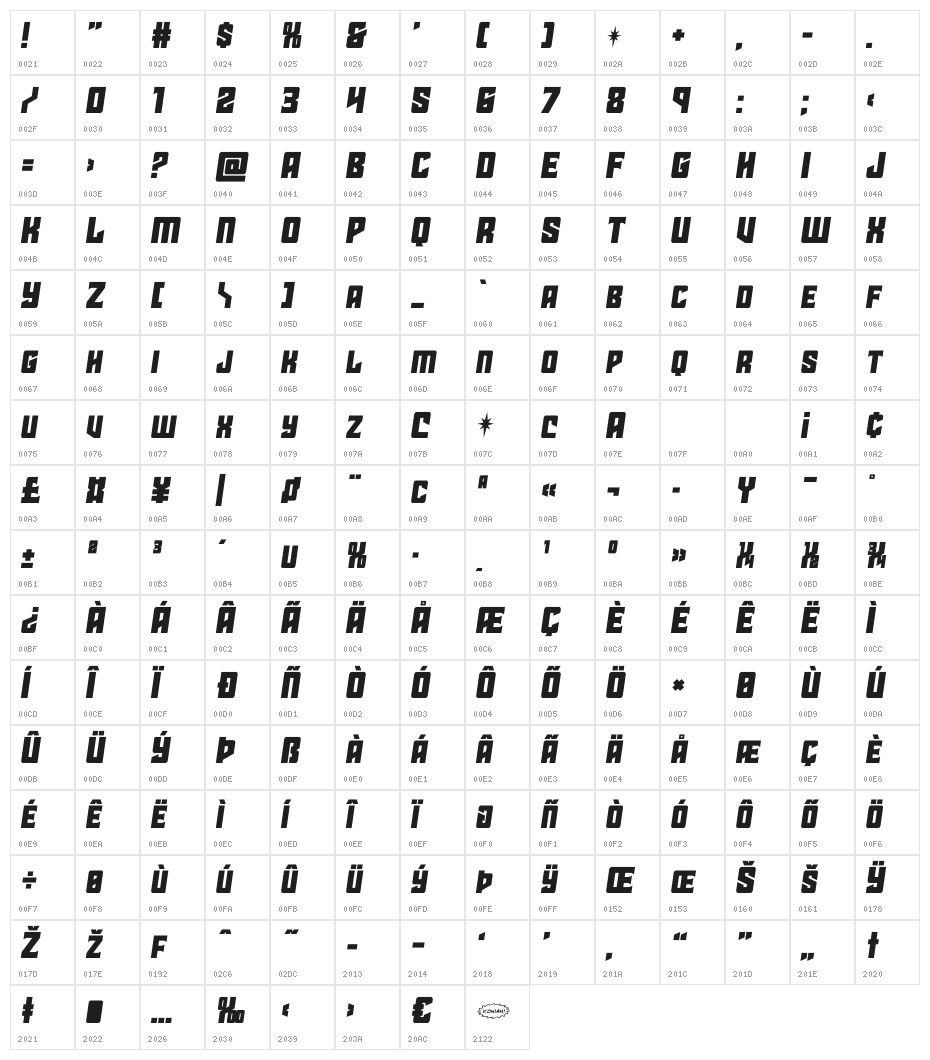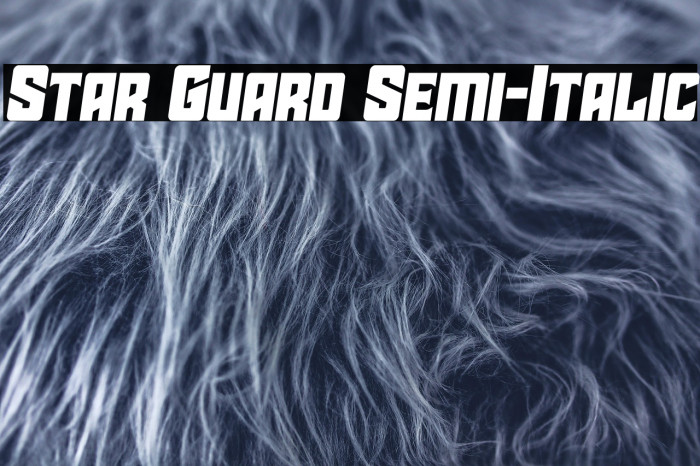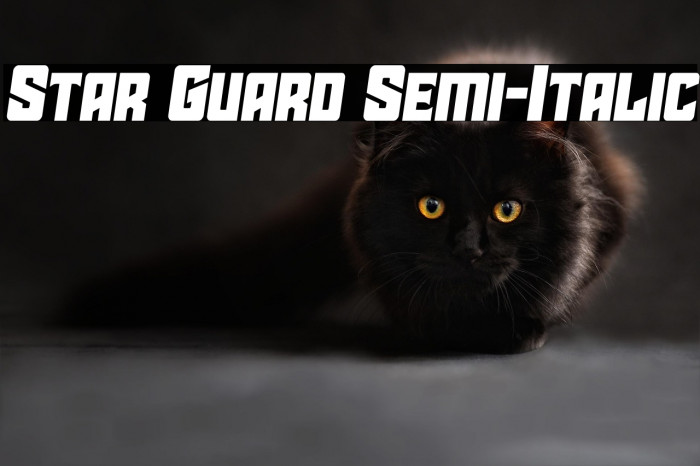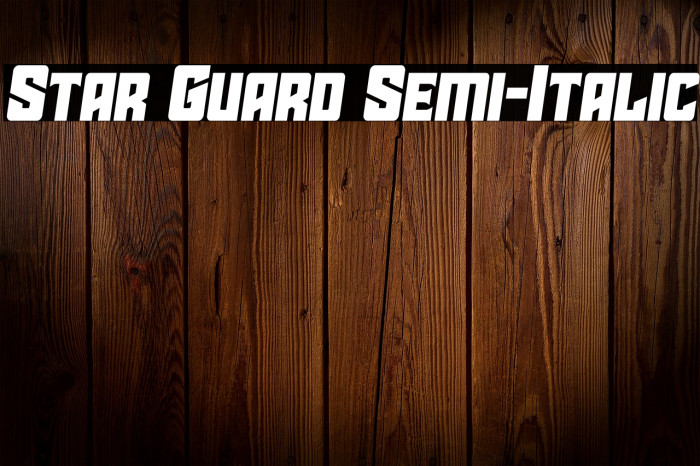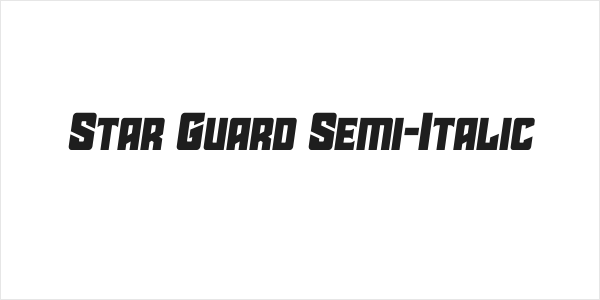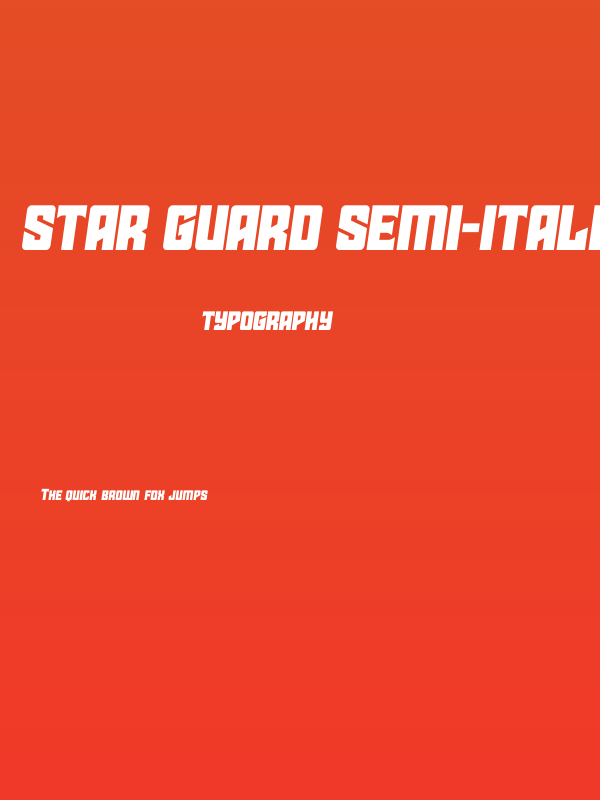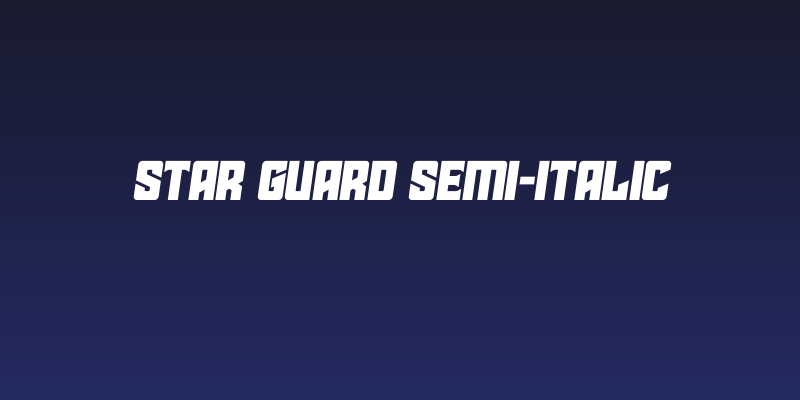
Star Guard Semi-Italic Font
Star Guard Semi-Italic Description
This font features a bold and dynamic style with a semi-italic slant, giving it a sense of motion and energy. The characters are blocky and robust, with sharp angles and a futuristic appearance. The uppercase and lowercase letters maintain a consistent weight, while the numbers and special characters complement the overall design. The font's unique style makes it stand out, suitable for projects that require a strong visual impact.
Proposed ProjectsIdeal for sci-fi themed designs, video game titles, movie posters, and branding that requires a modern and bold look.